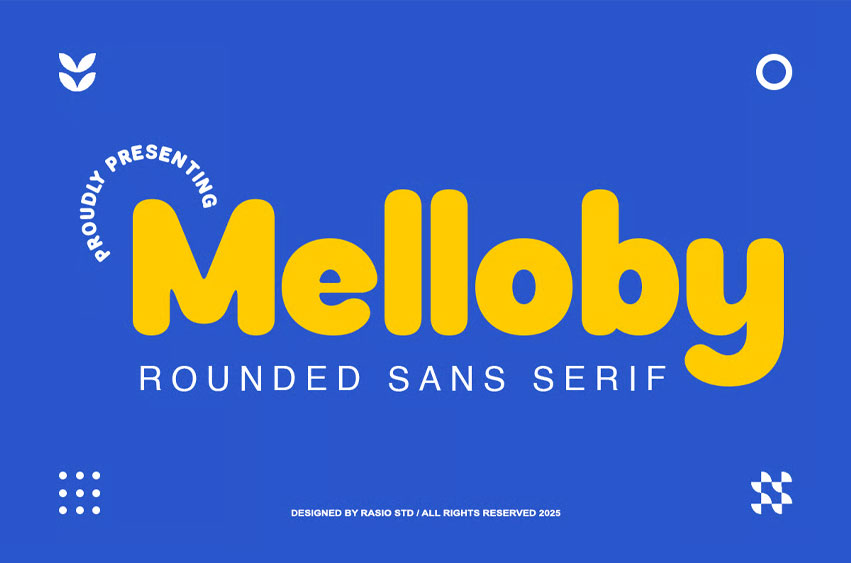
Melloby Font Rounded Sans Serif Font brings a cheerful and friendly aesthetic through its bold, soft-edged letterforms. Designed with playful proportions and smooth geometric balance, it delivers a modern yet approachable personality perfect for branding, packaging, posters, and creative headlines. The round terminals and consistent stroke widths create an inviting tone that makes every message stand out with warmth and clarity.
Relevance and Use Cases is perfect for cheerful branding, children’s product packaging, creative poster designs, summer campaigns, lifestyle editorials, playful titles, logo lettering, social media graphics, event signage, and any project that needs a soft yet bold typographic presence.
Bring joy and friendliness to your visuals with Melloby Rounded Sans Serif Font — a modern, bold, and playful typeface crafted to make every design feel fun, expressive, and full of life